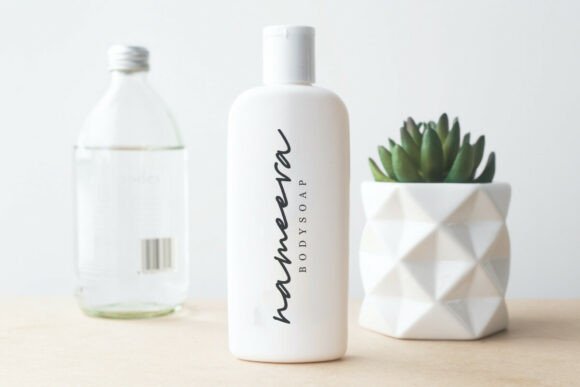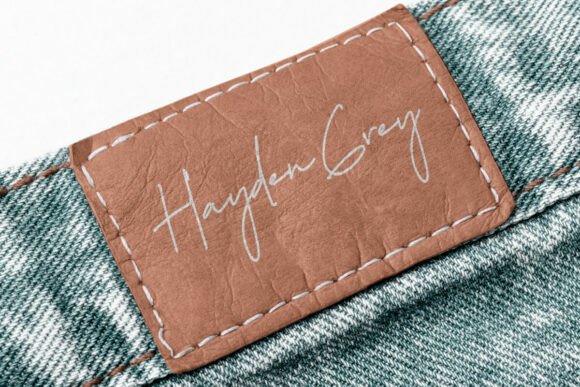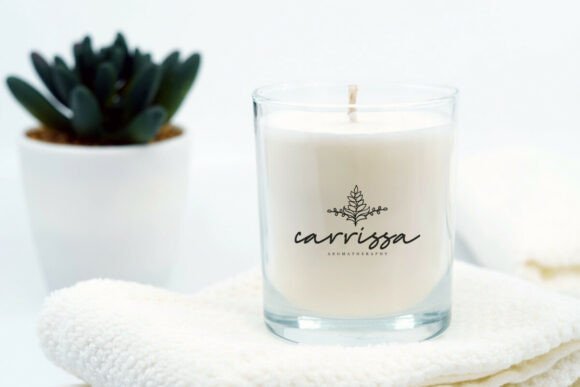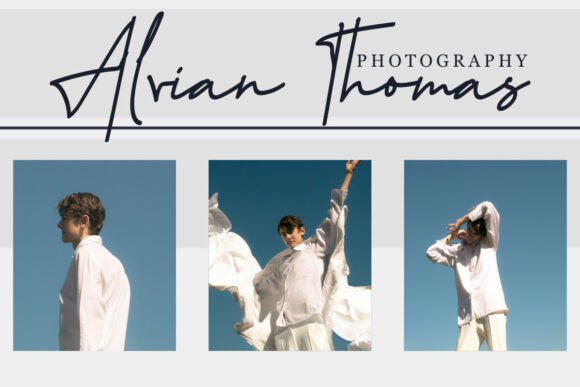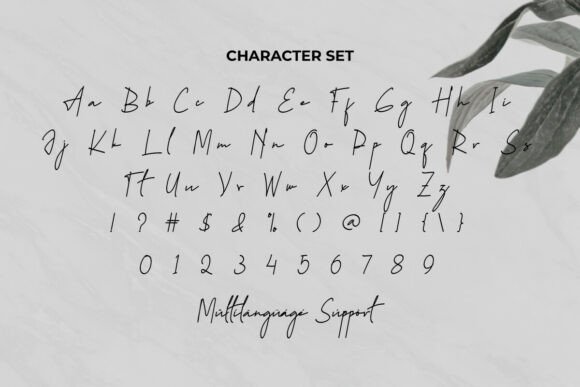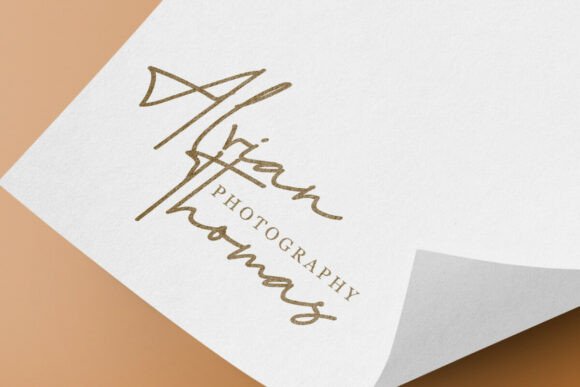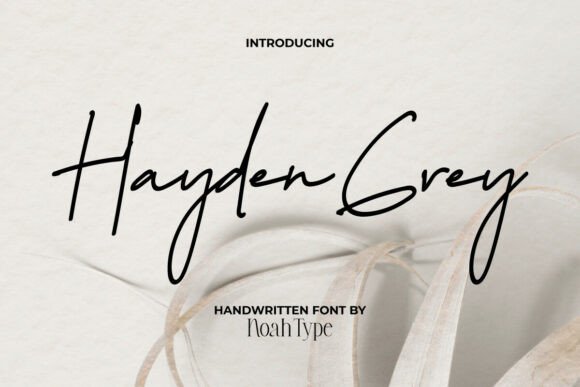
Introducing Hayden Grey Font: Elevate Your Designs with Minimal yet Professional Style
In the world of design, typography plays a crucial role in conveying messages, evoking emotions, and creating lasting impressions. For designers and crafters seeking a font that embodies both minimalism and professionalism, Hayden Grey Font emerges as an exceptional choice. This stylish signature font is crafted to add a touch of elegance and cleanliness to any design project, making it a versatile asset for a wide range of industries.
The Charm of Hayden Grey Font
Hayden Grey Font is distinguished by its sleek and uncomplicated design, which lends a sophisticated air to any project. Its minimalistic approach ensures that the font complements rather than overwhelms the content, allowing the message to take center stage. The subtle elegance of Hayden Grey Font can significantly enhance the aesthetic appeal of designs, turning ordinary visuals into memorable experiences.
Versatility Across Industries
One of the standout features of Hayden Grey Font is its versatility. Its clean and professional look makes it suitable for a myriad of industries, including:
- Advertising: Hayden Grey Font can add a touch of sophistication to ad campaigns, making them more engaging and effective.
- Beauty Products: For beauty brands, this font can convey a sense of luxury and elegance, aligning perfectly with high-end product lines.
- Event or Wedding Organizers: The font’s stylish and refined appearance makes it ideal for event branding, invitations, and related materials.
- Fashion: Hayden Grey Font can seamlessly integrate into fashion designs, adding a modern and chic vibe.
- Florists: For florists and flower delivery services, the font can help in creating visually appealing and delicate promotional materials.
- Jewelry: The elegance of Hayden Grey Font makes it a perfect match for jewelry brands looking to convey luxury and sophistication.
- Printing and Publishing: This font is well-suited for book covers, magazines, and other print materials where readability and style are paramount.
- Restaurants: Hayden Grey Font can enhance the branding of restaurants and cafes, offering a contemporary and inviting look.
Why Choose Hayden Grey Font?
Choosing Hayden Grey Font for your design projects comes with numerous benefits:
- Enhances Design Quality: The font’s clean lines and minimalistic design elevate the overall quality of visual materials.
- Improves Readability: Despite its stylish appearance, Hayden Grey Font maintains high readability, ensuring that messages are conveyed clearly.
- Versatile Application: Its suitability for various industries makes it a valuable addition to any designer’s toolkit.
Tips for Using Hayden Grey Font Effectively
To maximize the potential of Hayden Grey Font, consider the following tips:
- Pair with Complementary Fonts: For added visual interest, pair Hayden Grey Font with other fonts that complement its style.
- Adjust Font Sizes: Experiment with different font sizes to create visual hierarchy and emphasize key messages.
- Utilize Font Weights: If available, use different font weights to add depth and variety to your designs.
- Consider Color Schemes: Choose colors that align with the brand’s identity and enhance the overall aesthetic of the design.
Hayden Grey Font stands out as a versatile and stylish signature font that can elevate designs across a multitude of industries. Its minimal yet professional appearance, combined with its clean look, makes it an invaluable asset for designers and crafters aiming to create visually stunning and effective designs. Whether you’re working on advertising materials, fashion projects, or publishing ventures, Hayden Grey Font is poised to enhance your creative output and leave a lasting impression.